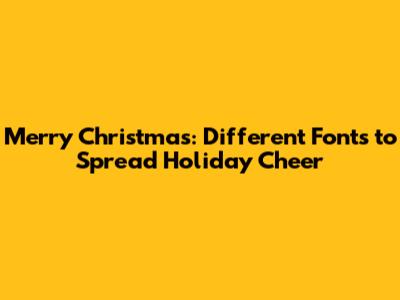
Hey guys! Christmas is just around the corner, and what better way to amp up the festive spirit than with some awesome fonts? Whether you're designing holiday cards, creating social media posts, or jazzing up your website, the right font can make all the difference. So, let's dive into a sleigh-full of merry christmas fonts that will add that extra sparkle to your holiday projects!
Why Fonts Matter During Christmas
Fonts are more than just letters; they're the voice of your message. During Christmas, when emotions run high and everyone's feeling that warm, fuzzy vibe, the font you choose can amplify those feelings. A playful, whimsical font can bring out the childlike joy of the season, while an elegant, classic font can evoke a sense of tradition and sophistication. Choosing the perfect font is like picking the right ornament for your tree – it completes the look and makes everything feel just right. When you think about it, the font is the first thing people see; it sets the tone before they even read the words. So, if you want to make a lasting impression and truly capture the essence of Christmas, paying attention to your font choice is key. You want something that not only looks good but also resonates with the message you're trying to convey. Whether you're aiming for a cozy, rustic feel or a sleek, modern vibe, the right font can help you achieve it. Plus, using unique and eye-catching fonts can help your content stand out in a sea of holiday messages. Think about it – everyone's sending out Christmas greetings, but how many are doing it with a font that truly captures the spirit of the season? By choosing a font that's both beautiful and appropriate, you can make your message more memorable and impactful. So, this year, don't underestimate the power of fonts. They're a simple yet effective way to spread holiday cheer and make your Christmas projects truly special.
Classic Christmas Fonts
When it comes to classic Christmas fonts, you can't go wrong with timeless choices that evoke tradition and elegance. These fonts are like the evergreen trees of the design world – always in style and instantly recognizable. Think about fonts like Garamond, with its refined serifs and graceful curves, perfect for formal invitations or elegant greeting cards. Then there's Times New Roman, a workhorse font that exudes reliability and sophistication, ideal for longer texts or official announcements. And who could forget Copperplate Gothic, with its stately, all-caps design, often used for signage and headings that need a touch of gravitas? These fonts bring a sense of history and heritage to your Christmas designs, reminding us of Christmases past and the enduring traditions we cherish. They’re versatile too, working well in both print and digital formats, ensuring your message looks polished no matter where it appears. Using classic fonts doesn't mean your designs have to be boring, though. You can add a modern twist by pairing them with contemporary colors or incorporating them into creative layouts. The key is to strike a balance between tradition and innovation, creating a look that's both timeless and fresh. Whether you're designing a Christmas card for your grandparents or crafting a festive banner for your office, classic fonts offer a reliable and elegant way to convey your holiday greetings. So, this year, why not reach for a classic and let its enduring charm bring a touch of sophistication to your Christmas projects?
Garamond
Garamond is a font that whispers elegance and sophistication. Its refined serifs and graceful curves make it a top choice for projects that require a touch of class. Think of using Garamond for your Christmas invitations, where you want to convey a sense of formality and tradition. It’s also perfect for creating elegant place cards for your holiday dinner or designing a sophisticated menu. The beauty of Garamond lies in its versatility. While it exudes a classic vibe, it can also be used in more modern designs by pairing it with contemporary colors and layouts. Imagine a Christmas card with a simple Garamond font against a backdrop of minimalist, modern graphics – the contrast creates a visually stunning effect. Garamond is also highly readable, making it a great choice for longer texts. If you’re writing a heartfelt Christmas letter to loved ones, Garamond will ensure that your words are not only beautiful but also easy to read. It’s a font that commands attention without being overbearing, making it perfect for projects that require a subtle yet impactful touch. Whether you're a professional designer or a DIY enthusiast, Garamond is a font that should be in your toolkit. Its timeless appeal and versatility make it a reliable choice for any Christmas project that calls for a touch of elegance and sophistication. So, this holiday season, let Garamond add a touch of class to your Christmas designs and help you spread joy with style and grace.
Times New Roman
Times New Roman – you might think it's just another default font, but hear me out! This font is a workhorse of the design world, known for its reliability and readability. While it might not be the flashiest choice, Times New Roman brings a sense of stability and sophistication to any project. For Christmas, consider using it for longer texts like newsletters, church bulletins, or even a printed version of your family's Christmas story. Its clean and straightforward design ensures that your message is easily digestible, no matter the length. Plus, Times New Roman is incredibly versatile. It works well in both print and digital formats, making it a reliable choice for all your Christmas communication needs. You can dress it up by pairing it with festive colors and graphics, or keep it simple for a more understated look. Don't underestimate the power of simplicity! In a world of overly stylized fonts, Times New Roman offers a refreshing sense of clarity and focus. It's a font that says,